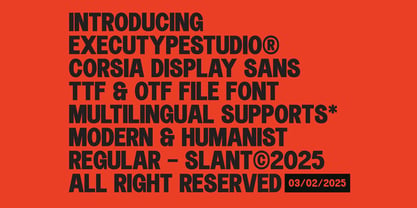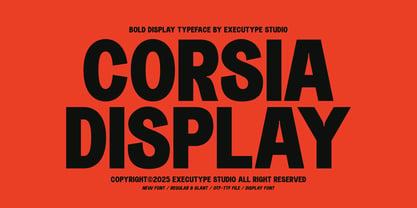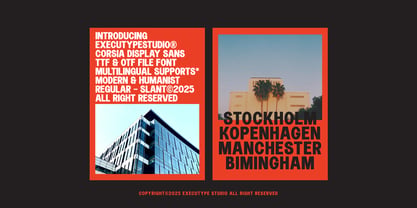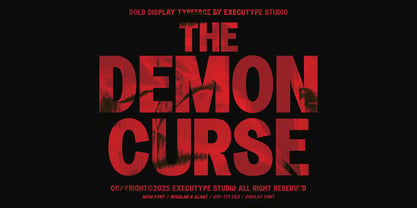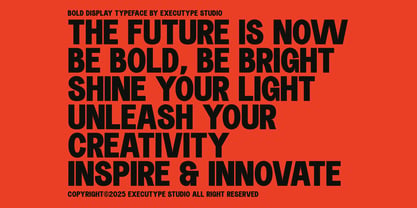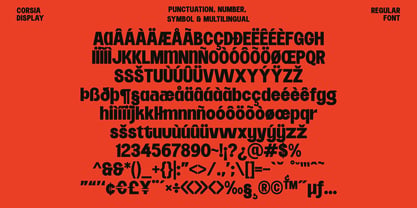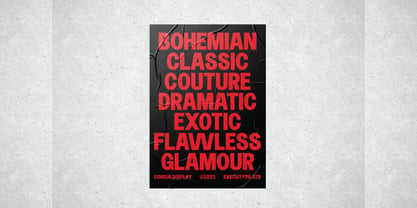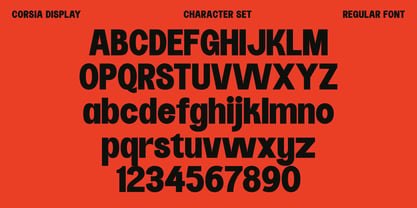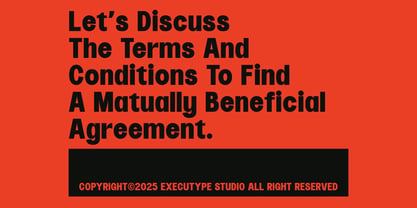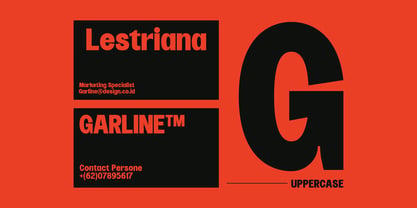
Corsia Display
by Tebaltipis Studio
The Corsia Display Font Family was designed by Dzulka Elfira and published by Tebaltipis Studio. Corsia Display contains 2 styles and family package options. More about this family
Corsia Display - Bold Display Typeface
Corsia Display the perfect bold and narrow font for headlines and captivating displays. Ideal for designers seeking a modern and impactful look with retro and vintage vibes. Transform your projects with this regular and slant, condensed typeface that demands attention.